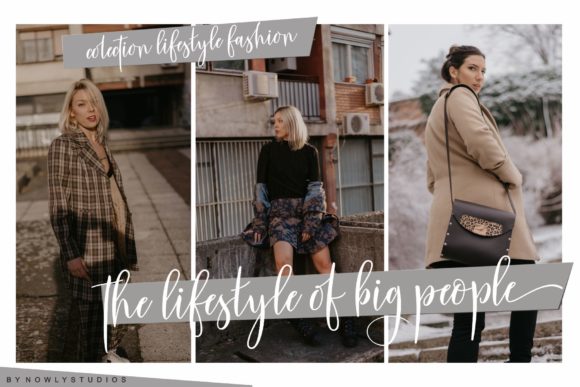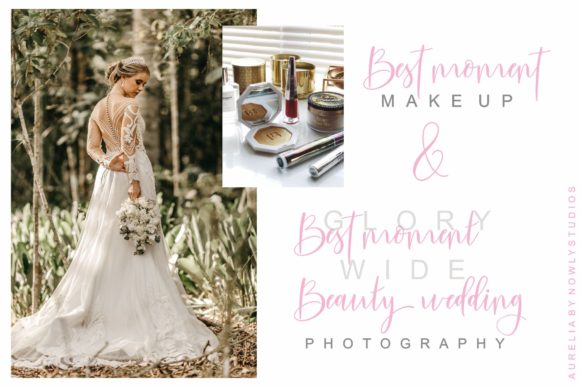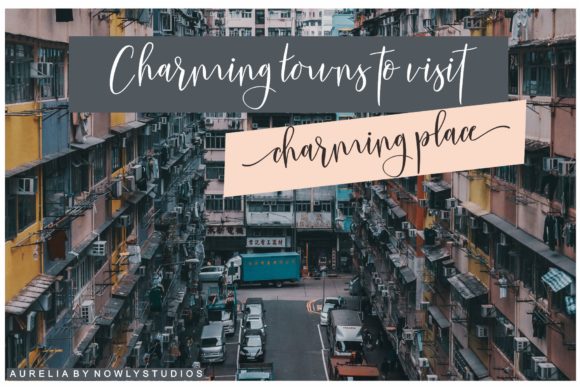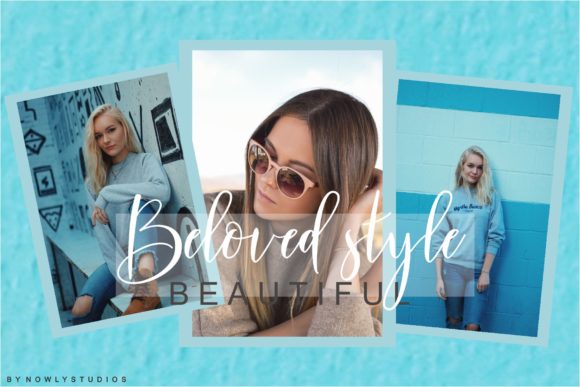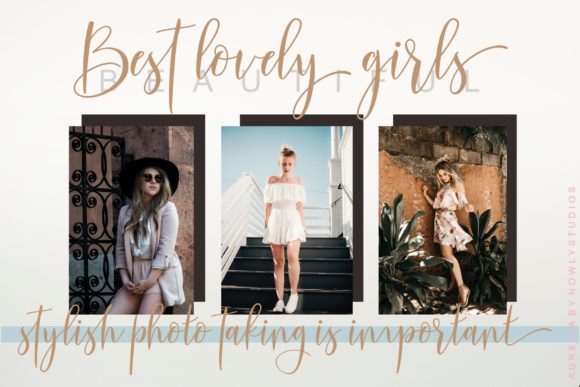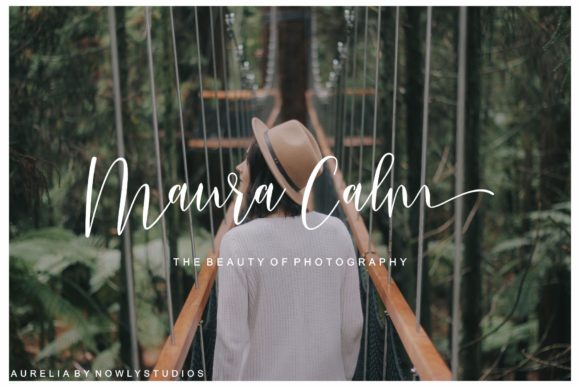
The Perfect Script Font for Your Next Design Project
There’s nothing quite like the feeling of finally landing on the perfect font for a design project. You’ve poured over countless options, scrolled through font websites, and experimented with different styles – and then, it happens. You stumble upon a font that makes everything click. For many designers, that font is the Aurelia Script Font.
Aurelia Script Font is a stunning script font with an authentic twist, adding an undeniable cool charm to any design. Whether you’re working on a branding project, creating a wedding invitation, or designing a website, Aurelia Script Font is sure to elevate your design to the next level.
As a valuable addition to any designer’s toolkit, the Aurelia Script Font offers a unique blend of elegance and sophistication, making it a must-have for any creative project. With its versatility and timeless appeal, this script font is sure to become a go-to choice for designers looking to add a touch of sophistication to their work.
Aurelia Script Font Key Features
- Font Family: Aurelia Script, Aurelia Script Italic, Aurelia Script Bold, Aurelia Script Bold Italic
- Font Size: 400 glyphs, supports a wide range of languages including Latin, Cyrillic, and Greek
- Resolution: Supports high-resolution displays with crisp and clear rendering at 300 DPI and above
- Unique Characteristics: Elegant and refined script font with a touch of sophistication, ideal for invitations, wedding stationery, and luxury branding
Aurelia Script Font Review
I’ve had the chance to work with Aurelia Script Font on a few projects, and I must say it’s a beautiful script font. ✨ It has a very elegant and refined look that adds a touch of sophistication to any design. It’s perfect for creating invitations, wedding stationery, or any other project that requires a high-end feel.
- ✨ Beautifully crafted letterforms that flow smoothly into each other
- ✨ Great for creating titles, headings, and short paragraphs of text
- ✨ Highly versatile and can be used in various design contexts
However, there are a few limitations to consider. ⚠️ The font can be quite decorative, which can make it difficult to read in larger blocks of text. It’s also not ideal for use in digital interfaces or other situations where legibility is crucial. Additionally, the font may not be compatible with all operating systems or devices.
Overall, I think Aurelia Script Font is a great choice for designers who want to add a touch of elegance and sophistication to their projects. While it may have some limitations, its unique style and beauty make it a valuable addition to any design toolbox.
Aurelia Script Font is ideal for:
- Stationery and greeting cards
For best results, use Aurelia Script Font in combination with bold, elegant, or modern fonts to create a sophisticated look.
Alternatives to Aurelia Script Font
Aurelia Script Font is a beautiful, elegant script font that is often used for titles and headings. However, there are other alternatives that can offer similar or unique features. Here are a few options:
Carolyna Pro is a modern, elegant script font that is perfect for luxury brands and high-end designs. It has a similar feel to Aurelia Script Font, but with a more refined and sophisticated look. Use Carolyna Pro for titles, headings, and branding that requires a touch of elegance.
Comparison to Aurelia Script Font: Carolyna Pro has a more refined and modern look, making it suitable for contemporary designs. It also has a wider range of weights and styles, making it more versatile than Aurelia Script Font.
Great Vibes is a beautiful, cursive script font that is perfect for creative and artistic designs. It has a more playful and whimsical feel than Aurelia Script Font, making it suitable for projects that require a touch of personality.
Comparison to Aurelia Script Font: Great Vibes has a more relaxed and casual feel, making it suitable for projects that require a creative and artistic touch. It also has a wider range of ligatures and swashes, making it more expressive than Aurelia Script Font.
Q: Can I customize Aurelia Script Font?
While Aurelia Script Font is a beautiful and elegant font, it is not designed for extensive customization. However, you can use font editors or software to make minor adjustments, such as font size, color, or spacing. For more extensive customization, you may need to hire a professional font designer or use a font editing software with advanced features.